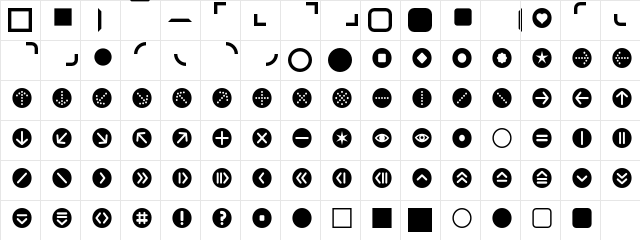
ButtonBonus CircleNegative
Design Context for ButtonBonus Typeface
ButtonBonus is a composed and adaptable typeface that performs quietly and consistently across a wide range of design contexts.
Pro Tip: Pair ButtonBonus with a font of contrasting weight or personality to build a more expressive typographic hierarchy.